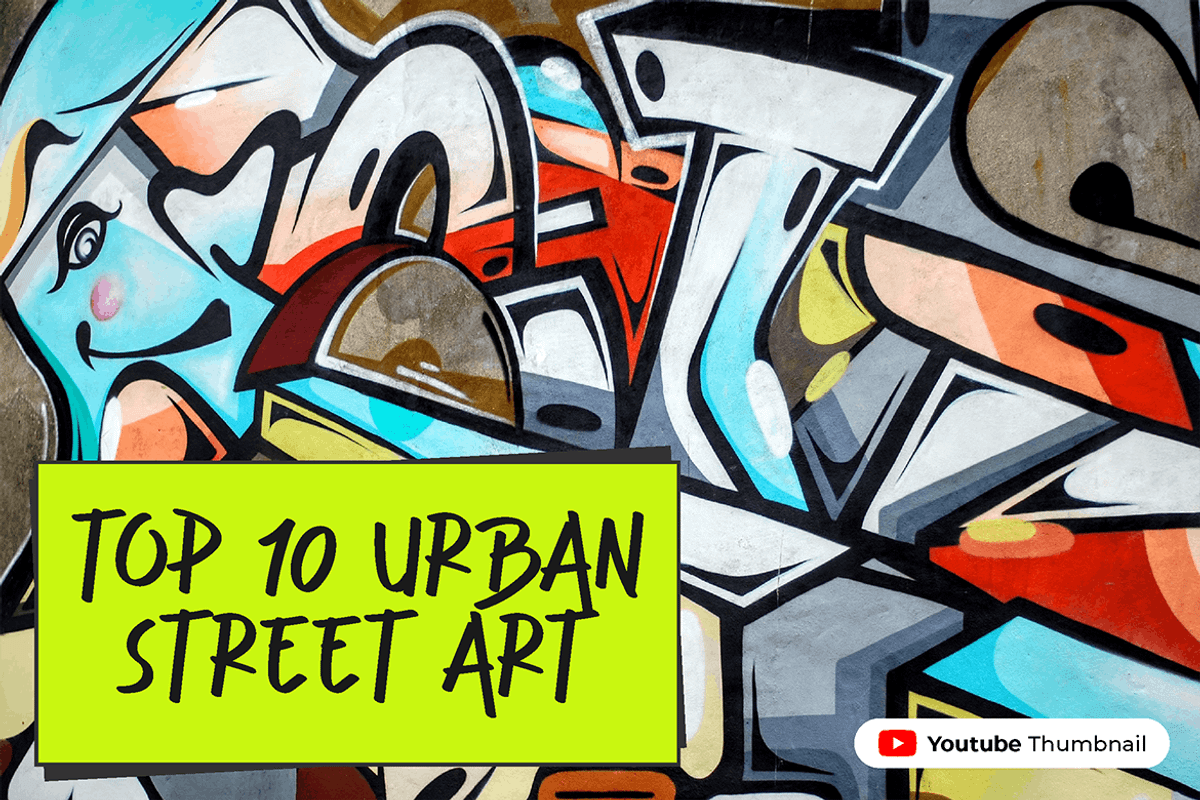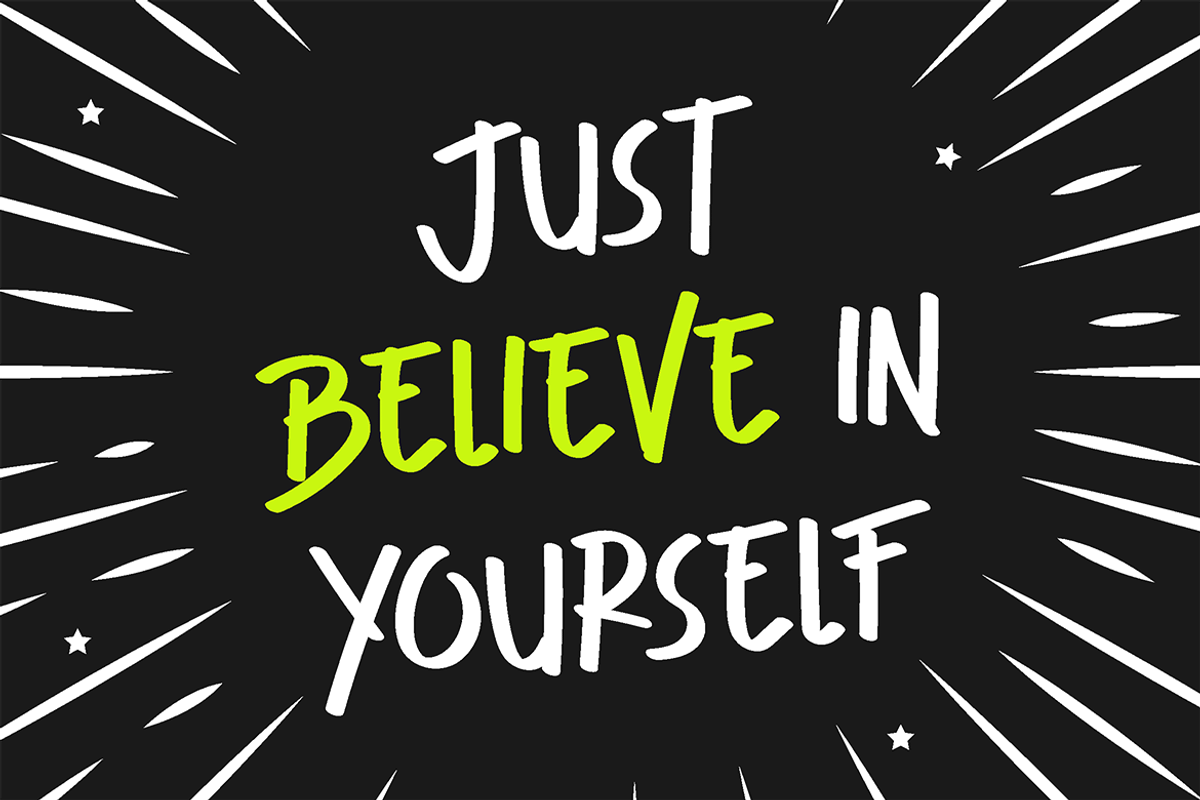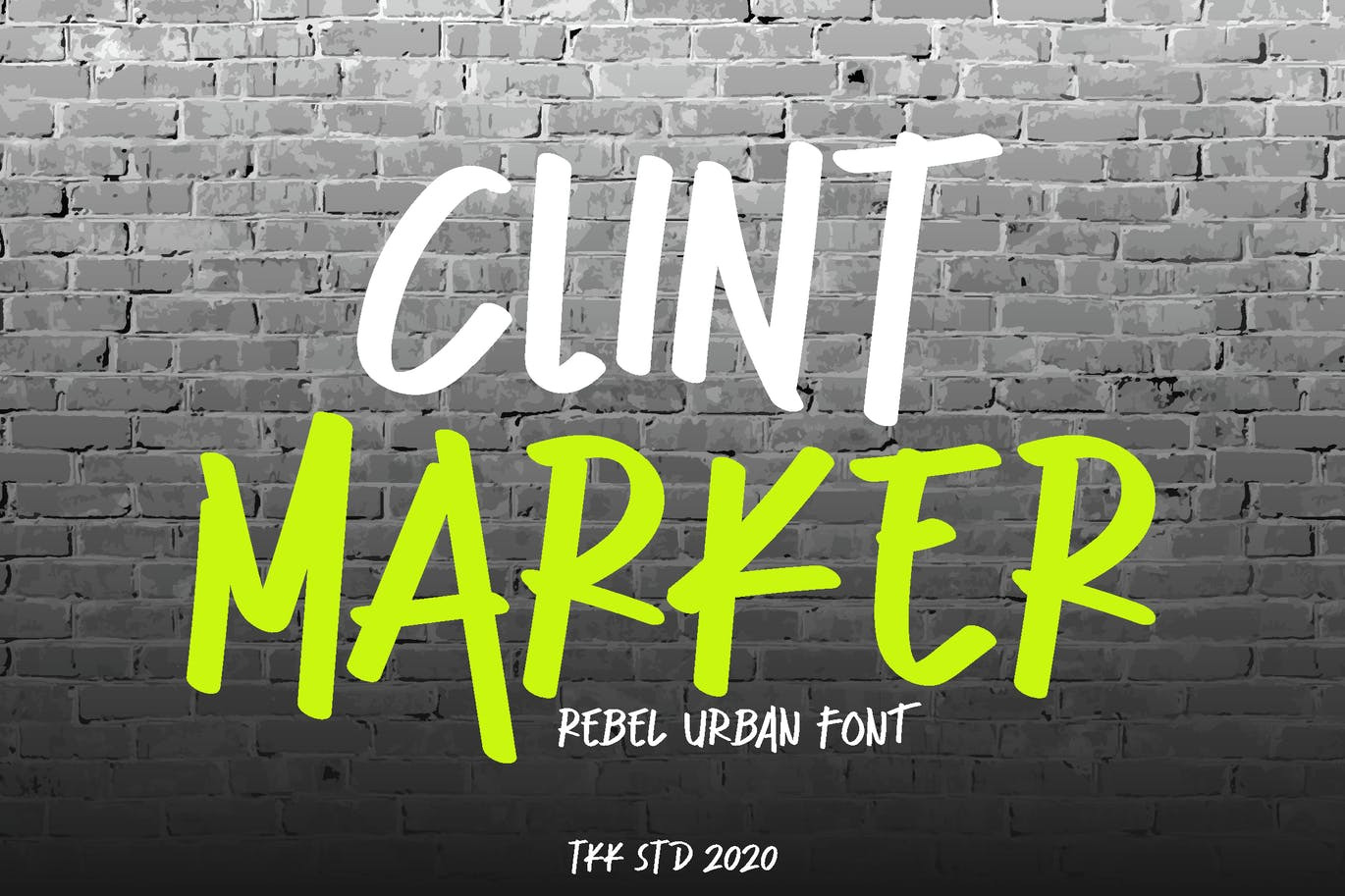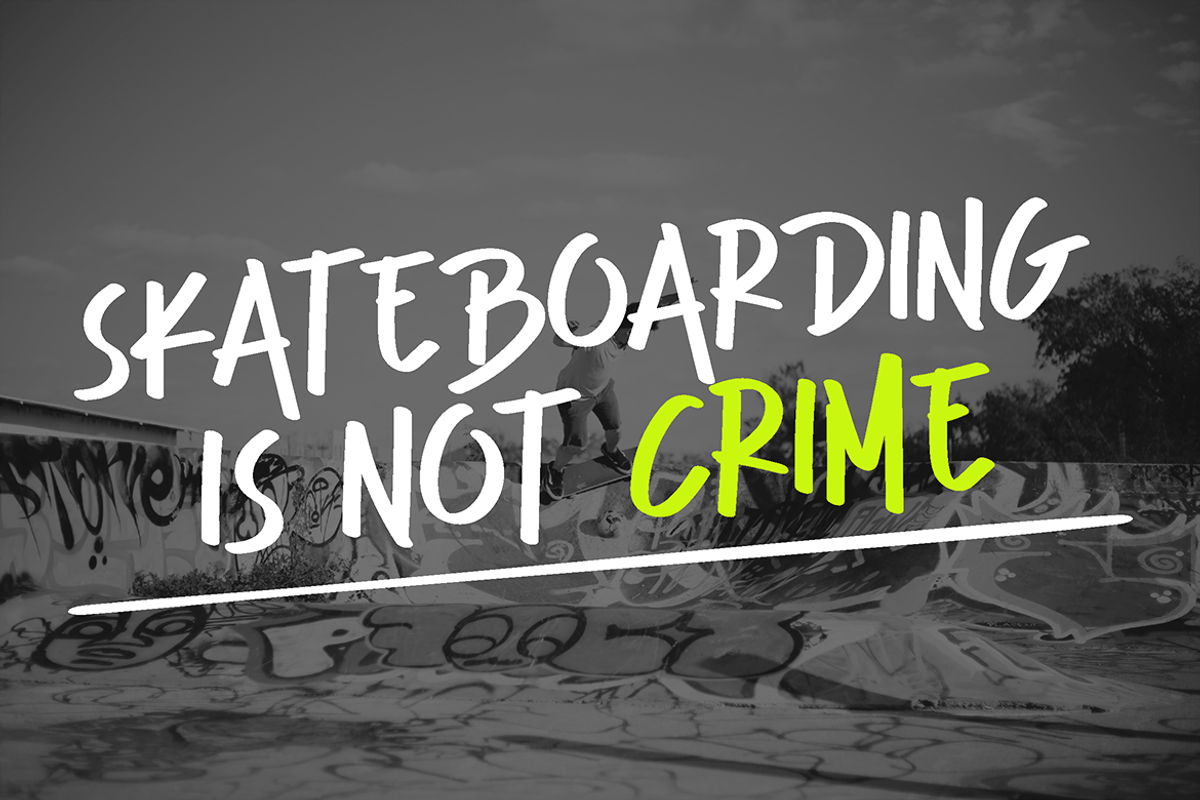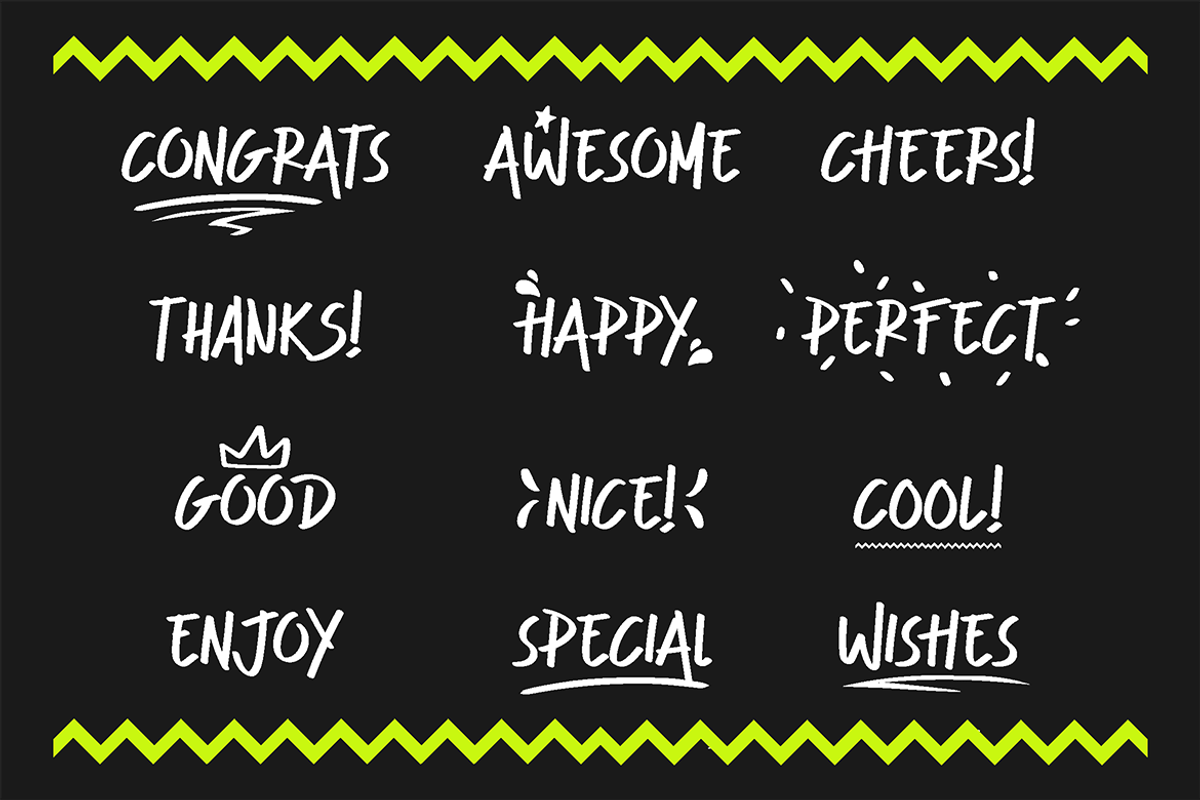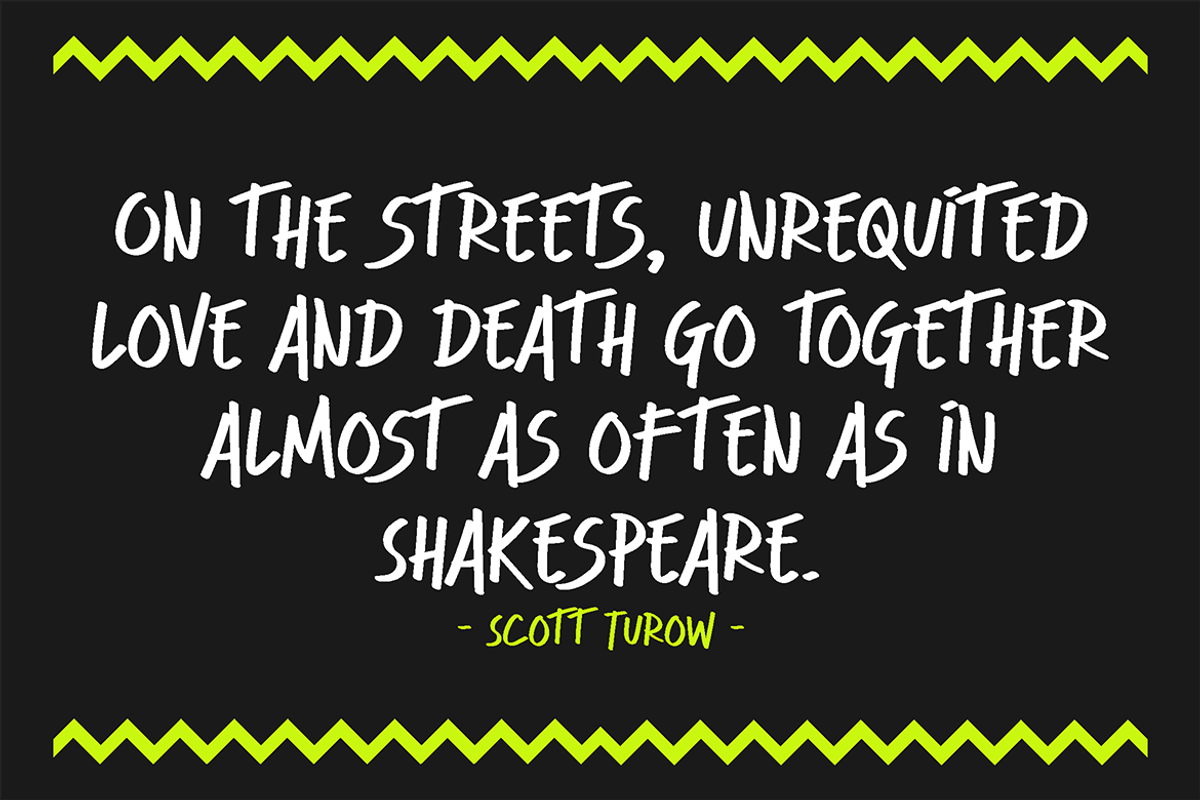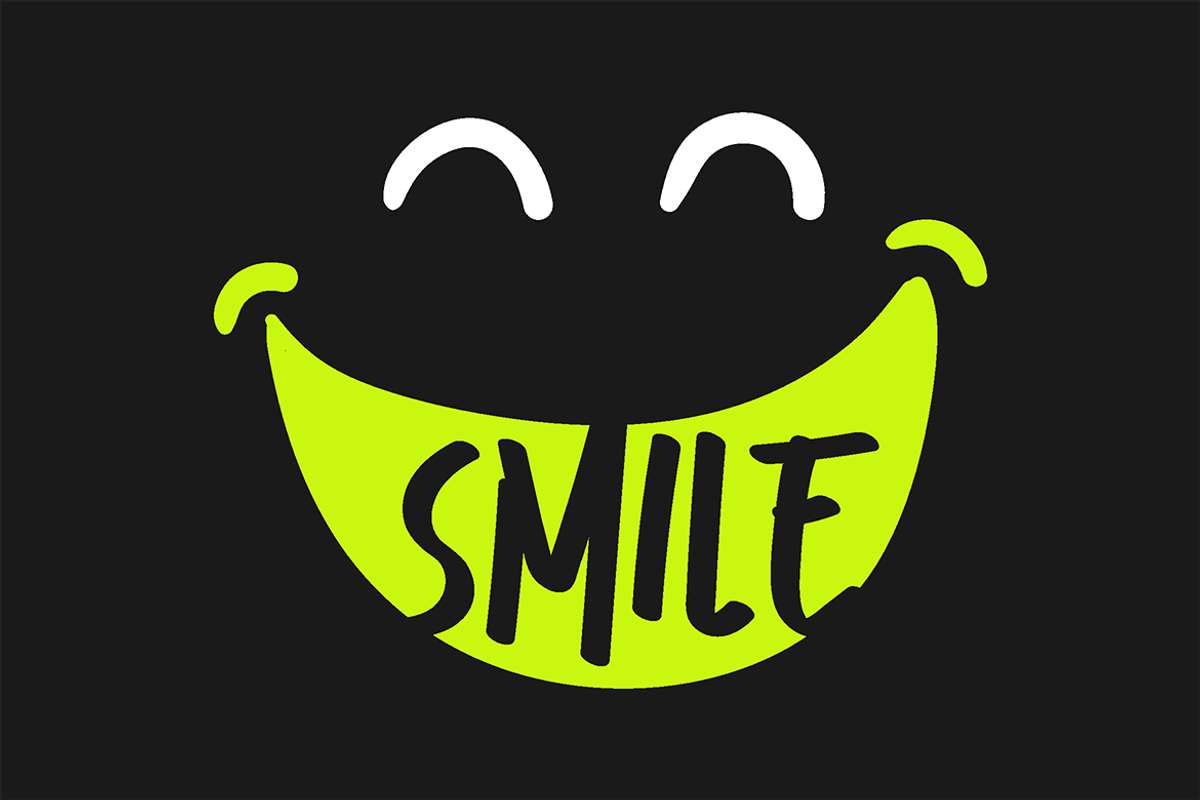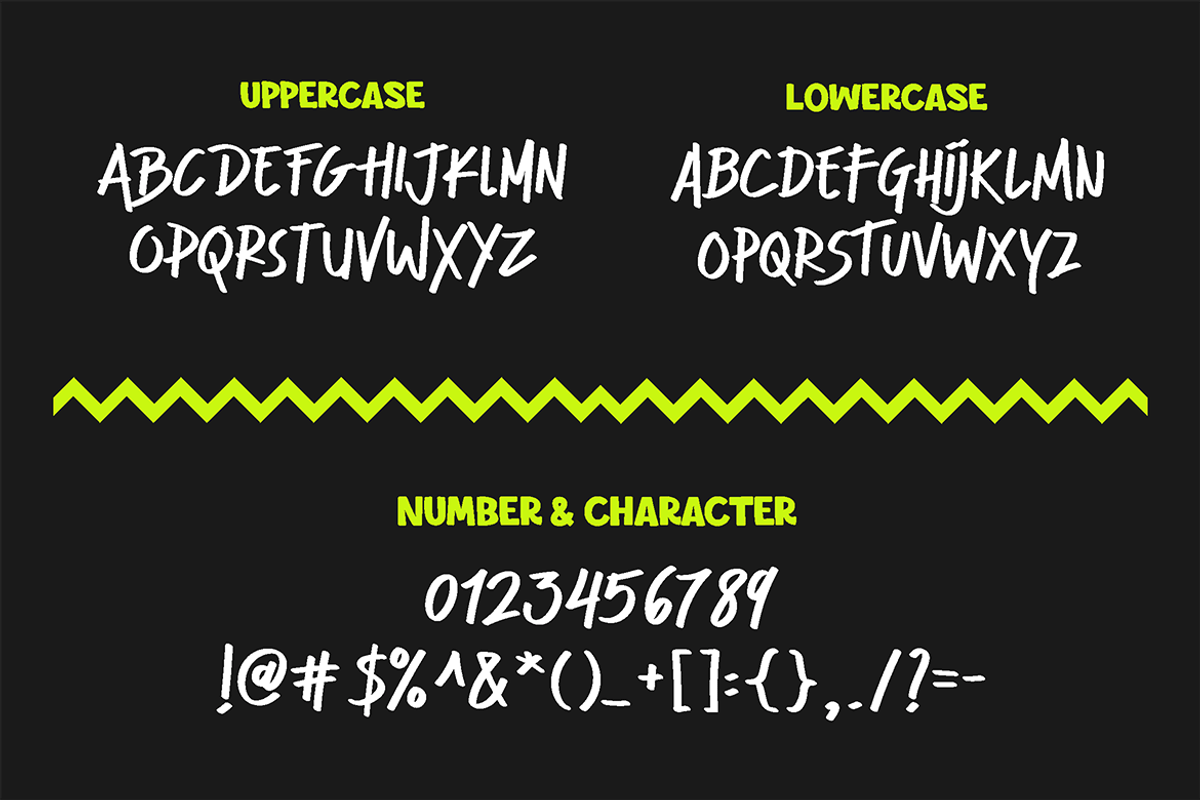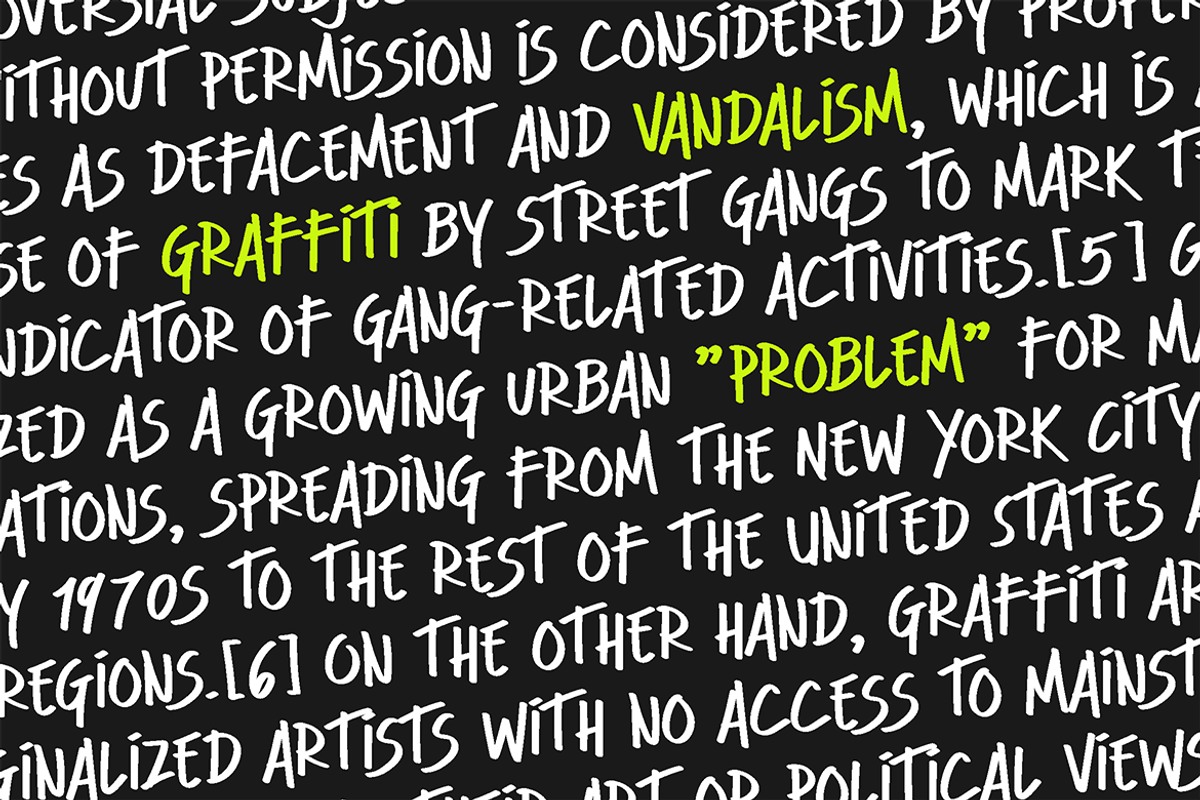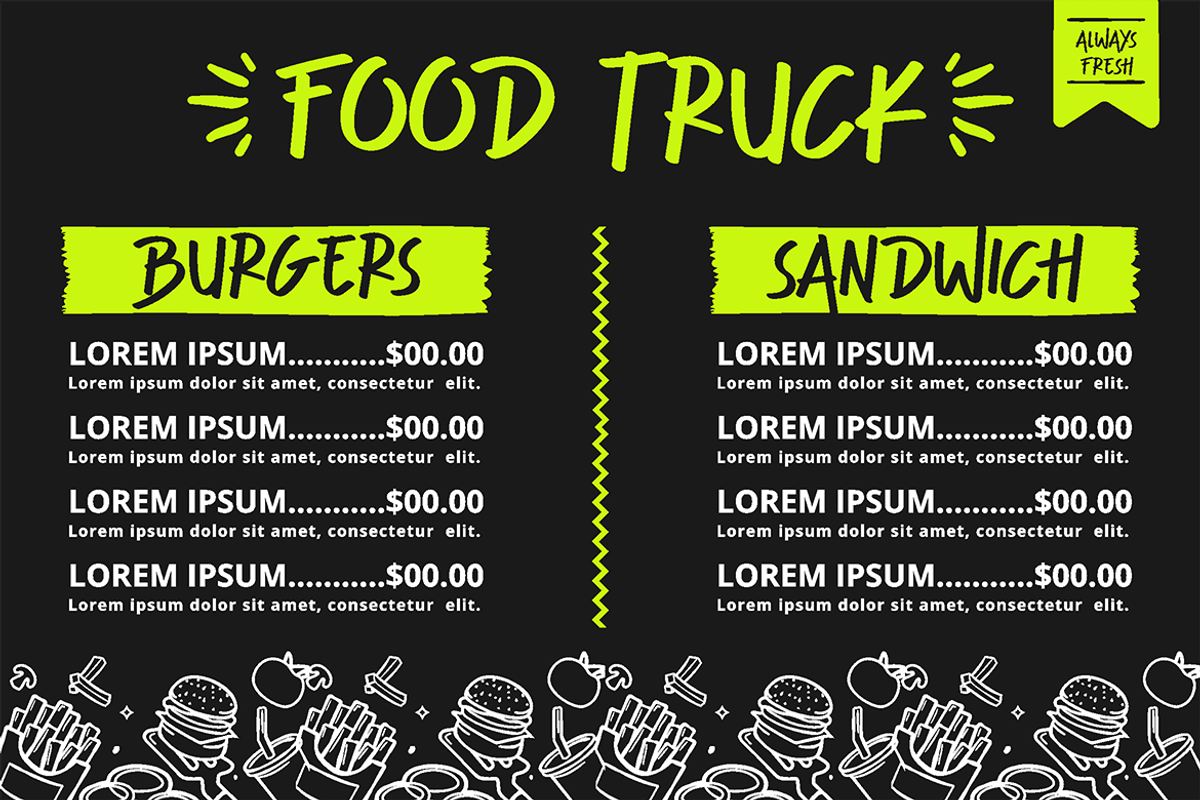
Clint Marker - Graffiti Font
Clint Marker graffiti font was taken from the urban spirit and rebellious teenager signature font. Carefree and always stay on the edge of their adrenaline. CLINT MARKER will make everything you wrote, blessed with unlimited energy.
Suit perfectly for Urban and Extreme Online Games, poster, movie title, fast food menu, magazine, youtube covers, youtube thumbnails, social media page covers and so on...